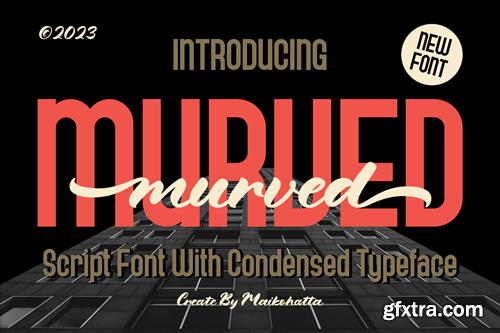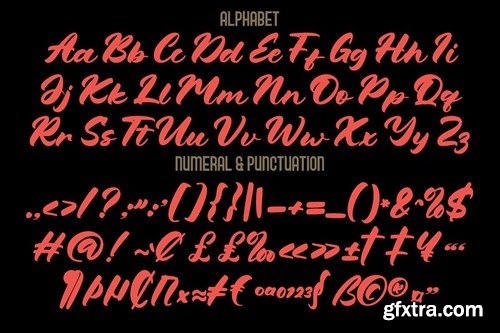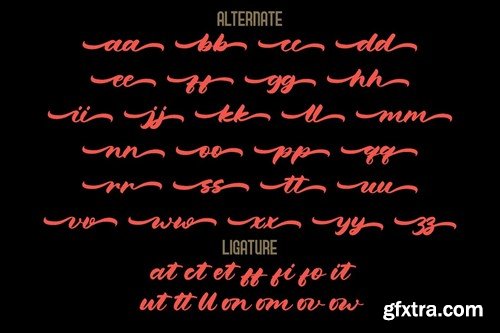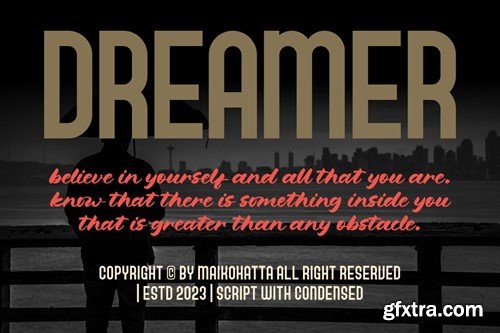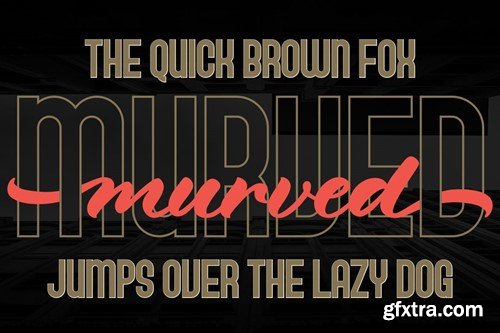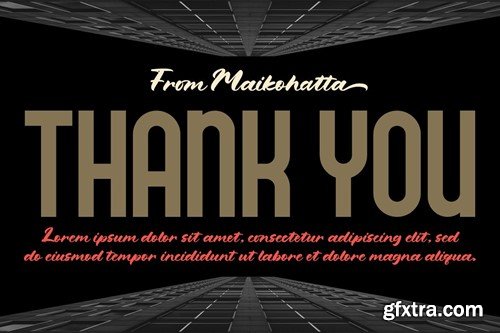
墨伏 - 脚本字体与紧凑型文字类型EJYRJJU
Introducing our new product Murved Script Font with Condensed Typeface The collaboration of these fonts creates an intriguing and balanced typographic design. The fusion of these two lettering styles provides a visually rich and contrasting dimension. Font condensed, with its slim and densely packed characters, introduces elements of simplicity and efficiency. Its usage delivers structure and excellent readability, making it ideal for conveying information with clarity. On the other hand, the script font brings a human touch and artistic feel to the design. Wavy lines and decorative elements in the script font create a warm handwritten nuance. This collaboration can be applied in various design contexts, ranging from promotional materials and branding designs to the development of a unique visual identity. availlable